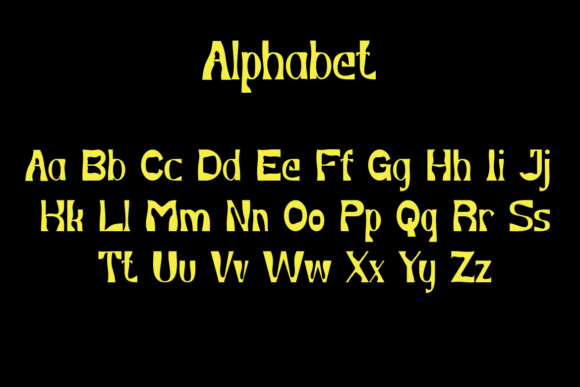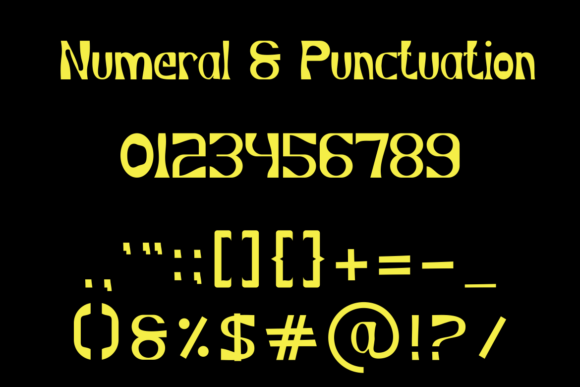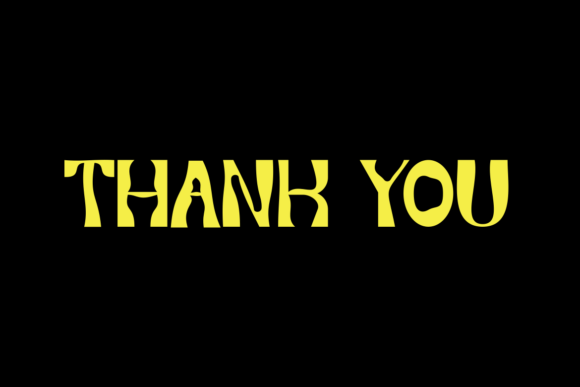
Introduction to Kilanyta Font
Kilanyta Font is a bold and authentic display font.
This amazing font is suitable for any branding project like logo, t-shirt printing, esports, and many more Outstanding in a wide range of contexts.
Key Features of Kilanyta Font